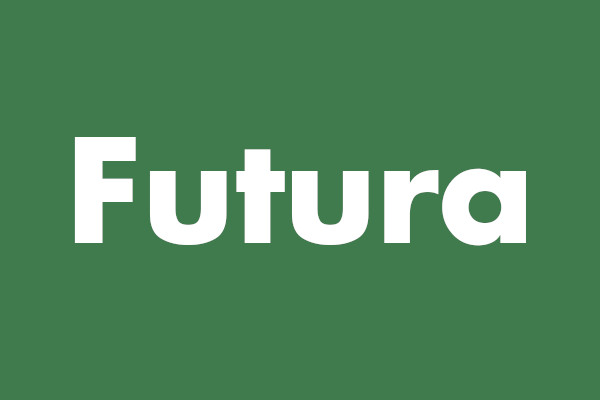
Futura is a geometric sans-serif typeface designed by Paul Renner in 1927. It was created during the Bauhaus movement and reflects a clean, minimalist design. Futura is known for its simple shapes, near-perfect circles, and modern feel.
This timeless font has been released in several weights and styles over the years, making it highly versatile for various design purposes. We like it best because of its structured yet elegant appearance ... for this reason, it remains a favourite in branding and editorial work. Futura is available in the following typographic styles: